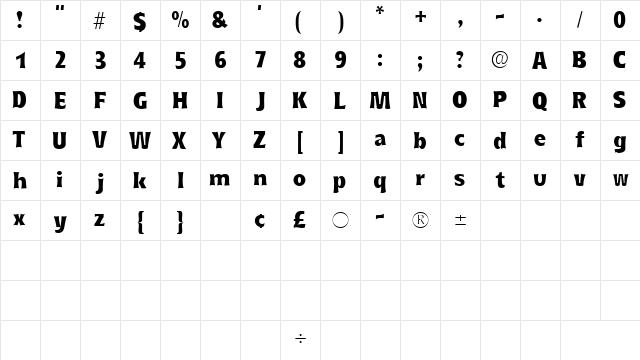
EleutheriaSSK Regular
Design Context for EleutheriaSSK Typeface
EleutheriaSSK offers clean, dependable letterforms without strong stylistic allegiance, making it a practical choice for designers who need flexibility.
Pro Tip: Use EleutheriaSSK in both headline and body roles to test its range before committing to a single application.